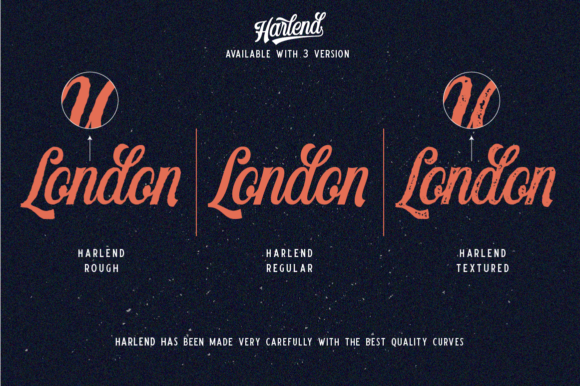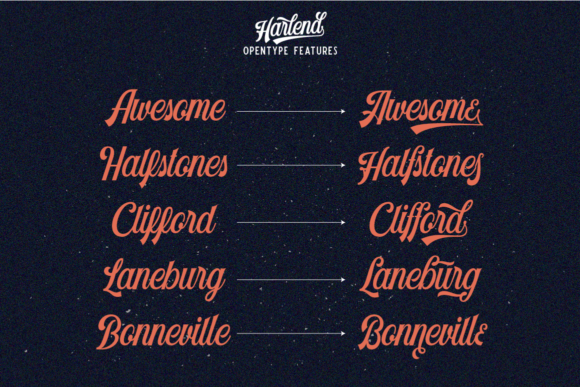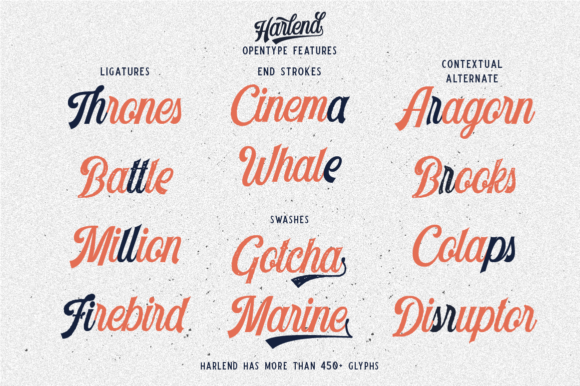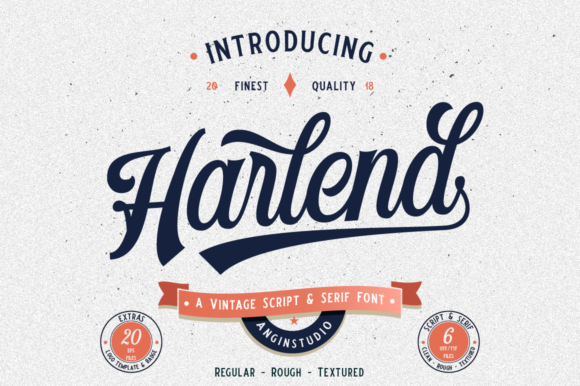
Introducing Harlend Font: A Timeless Handwritten Elegance
Are you a designer or crafter looking for a font that can add a touch of elegance and sophistication to your designs? Look no further than Harlend Font. This incredibly distinct, delicate, and timeless handwritten font is perfect for a wide range of design projects, from wedding invitations and thank you cards to quotes, greeting cards, logos, and business cards.
The Beauty of Harlend Font
Harlend Font is a beautifully crafted handwritten font that exudes a sense of refinement and poise. Its delicate strokes and intricate details make it a standout among other fonts, and its timeless quality ensures that it will never go out of style. Whether you’re looking to create a classic and traditional design or something more modern and trendy, Harlend Font is the perfect choice.
Harlend Font is particularly well-suited for wedding and event designs, such as wedding invitations, save-the-date cards, and thank you cards. Its elegant and sophisticated feel makes it perfect for formal events, and its delicate details add a touch of romance and whimsy. Whether you’re a designer or a crafty DIY bride, Harlend Font is sure to make your wedding stationery and event designs look stunning.
Versatile and Easy to Use
One of the best things about Harlend Font is its versatility. It’s easy to use and can be applied to a wide range of design projects, from digital designs to print materials. Whether you’re creating a logo, business card, or social media graphic, Harlend Font is sure to make your design stand out. Plus, its compatibility with a range of design software makes it easy to incorporate into your workflow.
What Sets Harlend Font Apart
So what sets Harlend Font apart from other handwritten fonts? For starters, its unique and delicate style makes it a standout among other fonts. Additionally, its timeless quality ensures that it will never go out of style, making it a great investment for designers and crafters. Finally, its versatility and ease of use make it a practical choice for a wide range of design projects.
Tips for Using Harlend Font
Here are a few tips for getting the most out of Harlend Font:
- Use it for headlines and titles to add a touch of elegance and sophistication
- Pair it with a simpler font for body text to create a beautiful contrast
- Use it to create custom illustrations and graphics, such as quotes and phrases
In conclusion, Harlend Font is a beautiful and versatile handwritten font that’s perfect for designers and crafters looking to add a touch of elegance and sophistication to their designs. Its unique and delicate style, timeless quality, and ease of use make it a great choice for a wide range of design projects, from wedding invitations and event designs to logos and business cards. Whether you’re a seasoned designer or a crafty DIY enthusiast, Harlend Font is sure to become a favorite in your font collection.